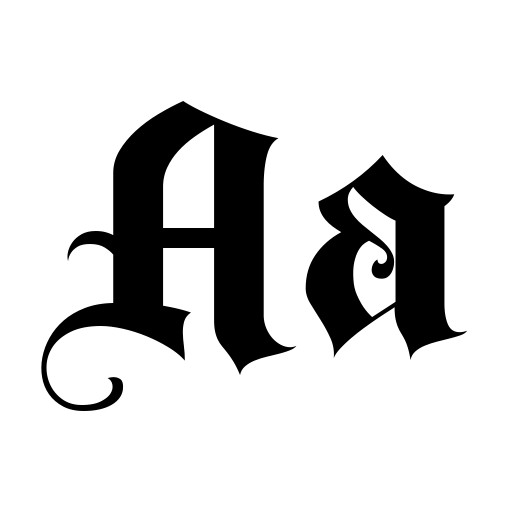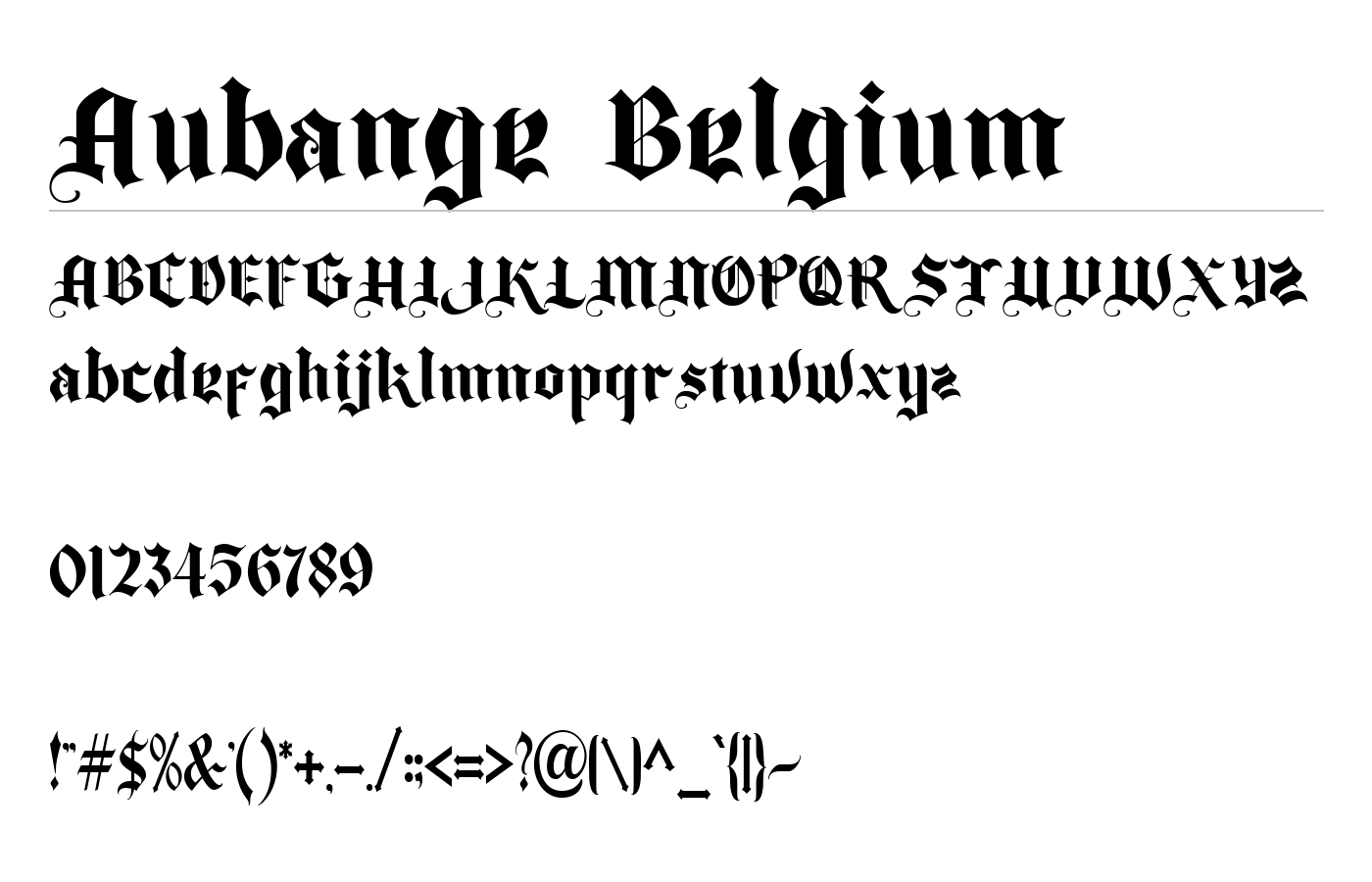
Aubange Belgium is a blackletter serif font with dramatic, bold strokes and sharp angular edges, capturing a historic and gothic feel. Its dense, textured letterforms with ornate details and high contrast make it ideal for creating a strong, traditional, and vintage character in logos, headlines, or decorative uses where an old-world atmosphere is desired. This font works best when you want to evoke heritage, authority, or a classic medieval style.
Aubange Belgium Font
About Aubange Belgium Font
| Font family | Aubange Belgium Font |